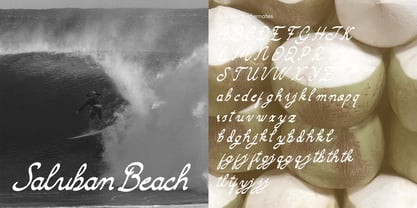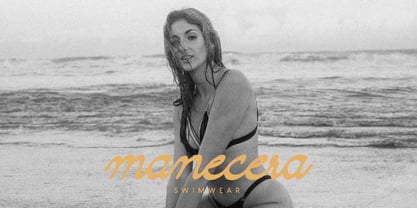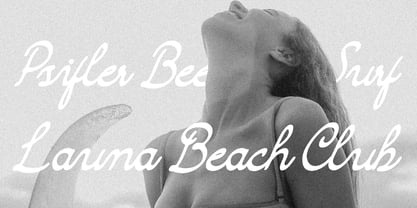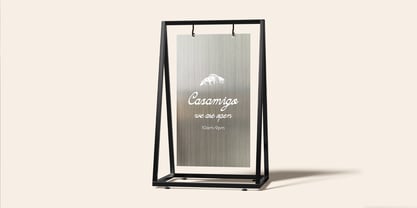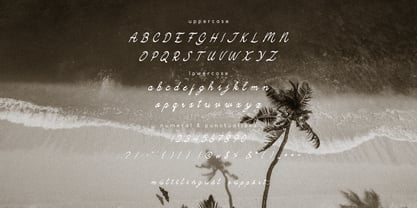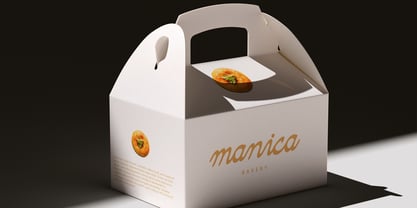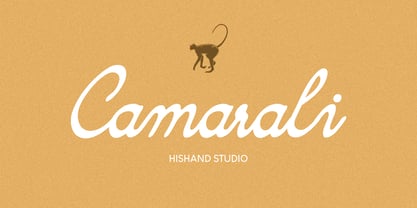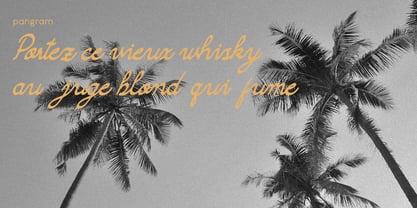
Camarali
by Hishand Studio
The Camarali Font Family was designed by Putu Dody Permana and published by Hishand Studio. Camarali contains 1 styles. More about this family
Camarali is a graceful handwritten script font that captures the essence of natural elegance and artistic expression. Designed with fluid strokes and gentle curves, it brings a sense of warmth and authenticity to any design. Each letter flows seamlessly into the next, creating a harmonious rhythm that feels refined. The subtle variations in line weight mimic real handwriting, giving Camarali a soft, organic appearance that enhances its aesthetic charm. Perfect for branding, invitations, social media, and editorial layouts, this font adds a touch of sophistication without feeling overly formal. Its balanced proportions ensure readability while maintaining a stylish, decorative presence. Camarali stands out for its ability to feel intimate yet polished, making it ideal for designers who want to convey beauty, creativity, and a modern handwritten appeal in their work. complete with - uppercase - lowercase - ligatures - alternates - multilingual support
Designers: Putu Dody Permana
Foundry: Hishand Studio